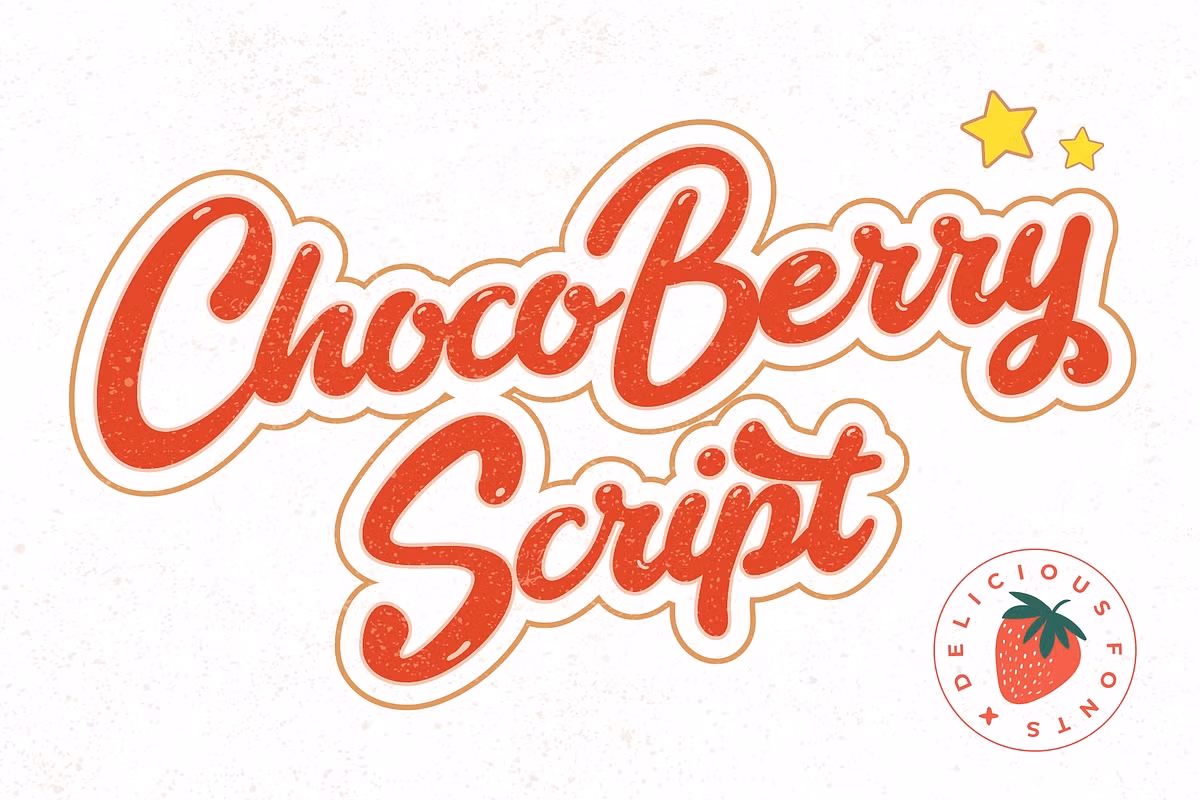
Choco Berry - Delicious Food Fonts Free Download is a fun and playful typeface designed to add a sweet, appetizing touch to your food-related projects. Perfect for restaurant menus, food packaging, logos, and marketing materials, Choco Berry brings a friendly and tasty vibe to your designs. Its whimsical letterforms make it ideal for food brands, dessert shops, or any project that needs a mouthwatering, light-hearted look.